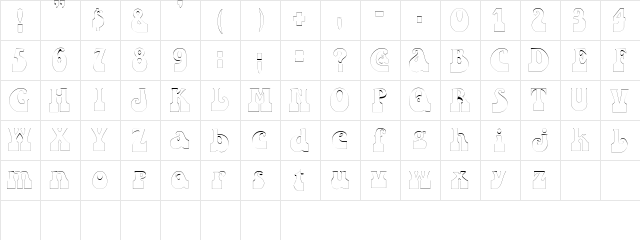
SandCastlesOutline Regular
Design Context for SandCastlesOutline Typeface
SandCastlesOutline brings ornamental detail and strong personality to headlines and identities, where visual impact matters more than quiet functionality.
Font Pairing: Pair with a clean neutral sans-serif for body copy to let SandCastlesOutline's character lead without overwhelming the composition.
Pro Tip: Use SandCastlesOutline exclusively at display sizes — it was designed to be seen, not read at length. Let a neutral companion handle body copy.